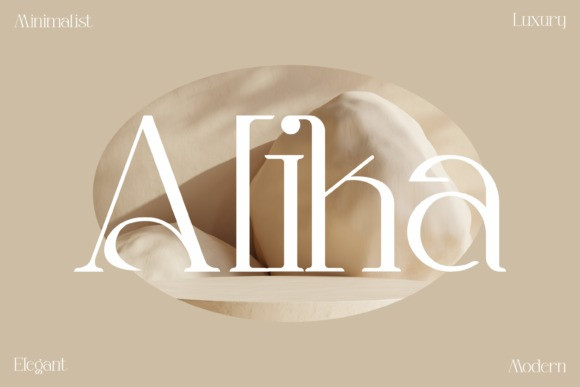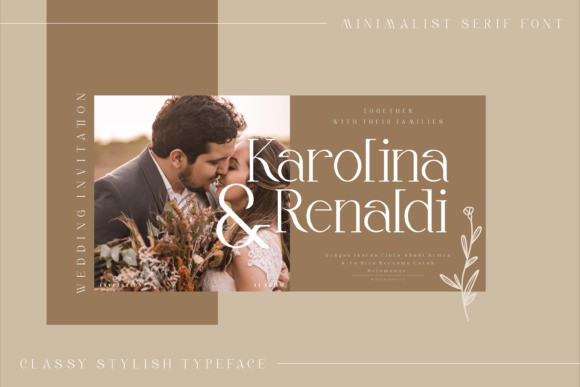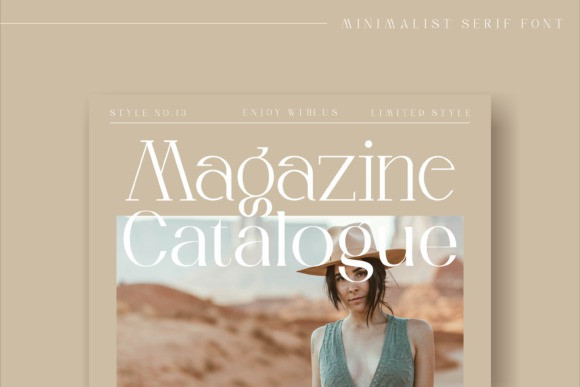
Alika Font
Alika is a thin lettered and light serif font. This original look will appeal to a wide range of crafty ideas, from letterheads and titles, to stationery.